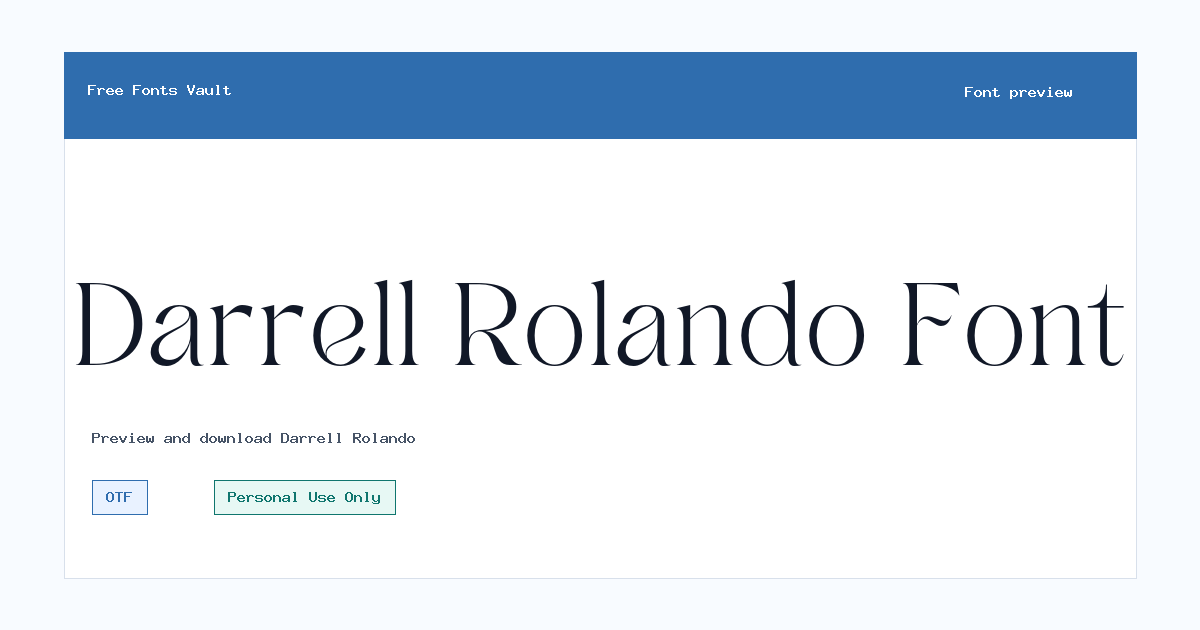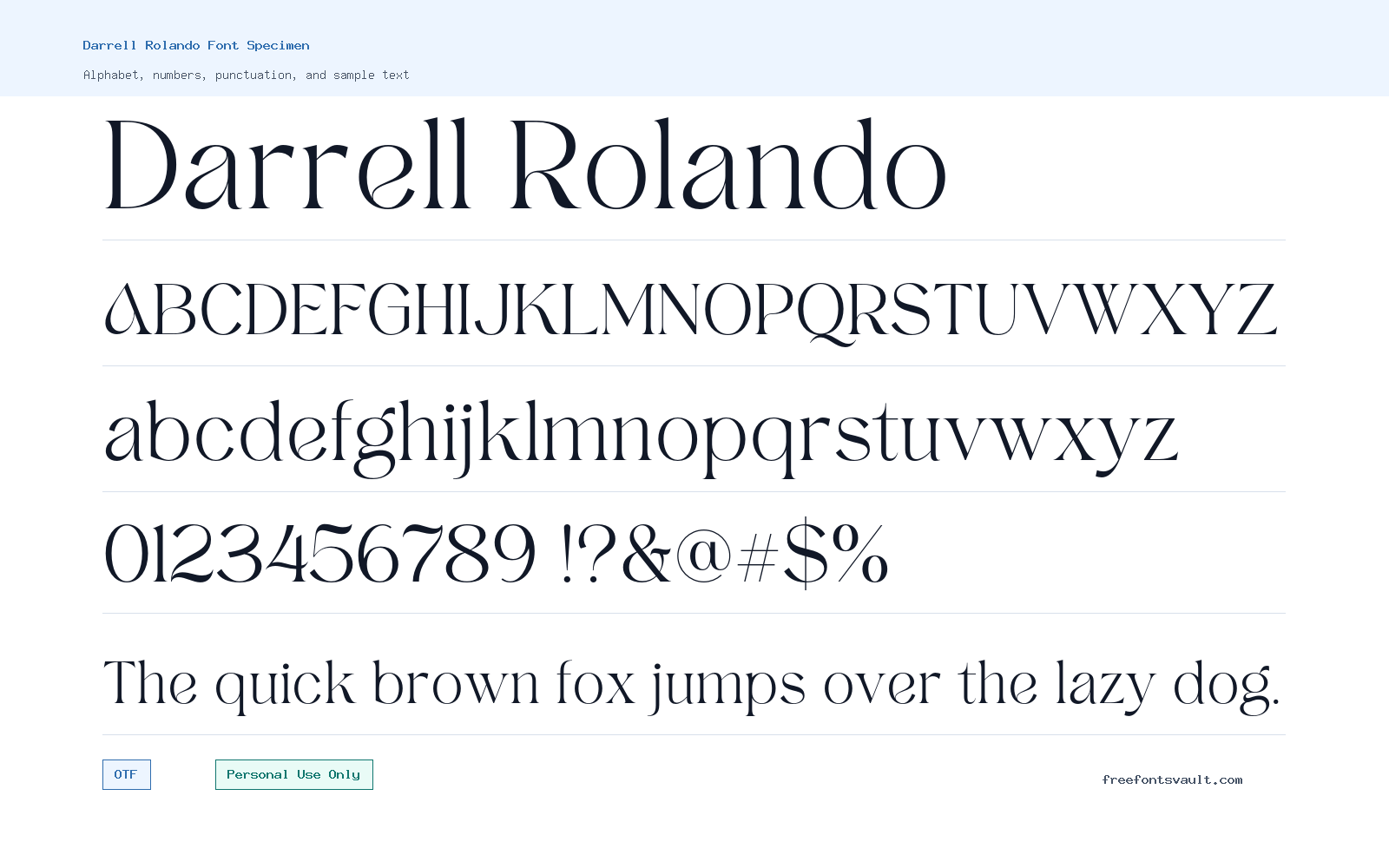
Darrell Rolando
- Designer Akhmad Reza Fauzi
- Foundry Grezline Studio
Darrell Rolando font.
Darrell Rolando is presented as a serif font, so it is best approached as a display choice for text that needs more character than a plain system typeface. Because the available file is a regular OTF style, it is most useful for focused design tests: titles, logo drafts, invitation headings, social graphics, packaging mockups, poster lines, and other places where a single font style can carry the main visual message. Use the preview area to check the details that matter most for your design, such as letter spacing, uppercase shapes, punctuation, numerals, and how the font handles your exact wording.
For logo work, start with short names or two-word lockups rather than long paragraphs. Display fonts often look strongest when they have room to breathe, so try wider spacing, generous margins, and a simple background before adding extra effects. For posters and web mockups, test the font at the actual size you plan to use. A style that looks refined in a large headline may become harder to read in small captions, navigation labels, or dense body text. If you need a full identity system, pair Darrell Rolando with a clean sans serif for descriptions, menus, and supporting copy so the display lettering does not have to do every job.
- Regular style with normal weight, suitable for headline and display testing
- Good candidate for short-form previews such as names, titles, poster lines, and logo drafts
- Logo concepts and name-based identity sketches
- Poster titles, event graphics, and display headlines
- Invitation headings, quote graphics, and decorative title treatments
- Web mockups where the font is used for hero text rather than body copy
Test Darrell Rolando with your exact words before using it in a design. Check uppercase and lowercase balance, spacing between problem pairs, punctuation, numbers, and readability at the final size. For longer copy, pair it with a neutral sans serif or readable text serif and keep Darrell Rolando for the main title or accent line.
Who designed Darrell Rolando?
Darrell Rolando is credited to Akhmad Reza Fauzi, with Grezline Studio listed as the foundry.
What is Darrell Rolando best used for?
It is best tested for short display settings such as logos, titles, posters, invitations, and visual mockups rather than long reading text.
What should I pair with Darrell Rolando?
Use a simple sans serif or a highly readable text font for body copy, menus, and captions. Let Darrell Rolando handle the headline or logo-style text so the layout stays clear.